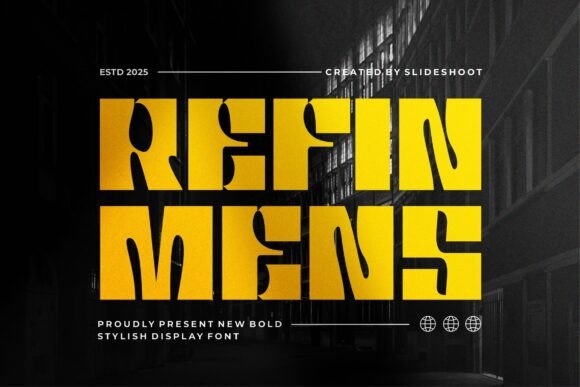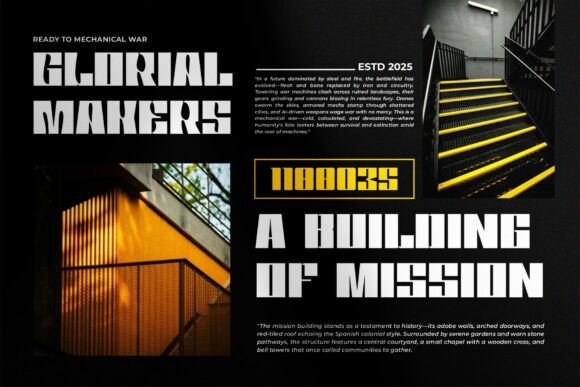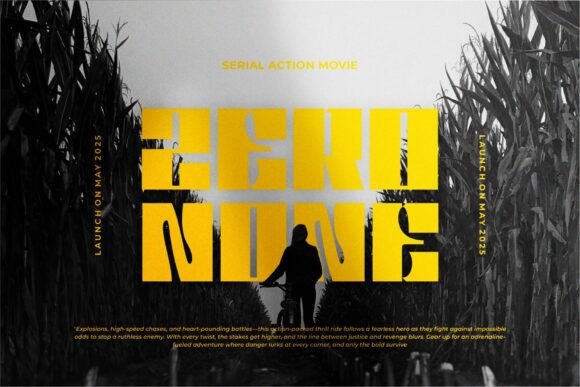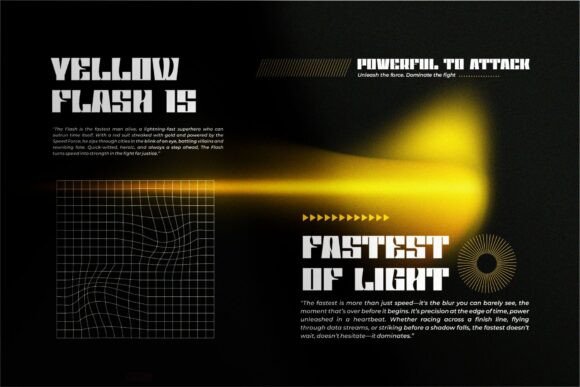
Refin Mens Font
About the Refin Mens Font
We are excited to introduce Refin Mens Font, a must-have typeface for any serious designer. Refin Mens is a bold and expressive display font with striking shapes and abstract cuts. This font brings a powerful, urban vibe to posters, album covers, streetwear branding, and bold headlines. It’s built to grab attention.
Refin Mens excels in large-scale applications demanding impact: posters, headlines, and logo designs for brands with a strong, urban aesthetic. Its bold forms are less effective for body text or UI elements where readability at smaller sizes is crucial. Avoid using it for long paragraphs or situations requiring high legibility.
The font’s inherent boldness pairs well with clean, minimalist sans-serifs like Futura or Helvetica for a balanced contrast. For a more rebellious feel, consider pairing it with a rough-edged, geometric sans-serif. Conversely, a delicate script font can provide a sophisticated counterpoint, adding a layer of unexpected elegance.
Refin Mens projects a powerful, rebellious, and modern personality. It’s ideal for brands targeting a younger demographic interested in streetwear, music, or urban art. Its strong visual presence makes it a perfect choice when you need to communicate boldness and confidence.
Refin Mens Font Example